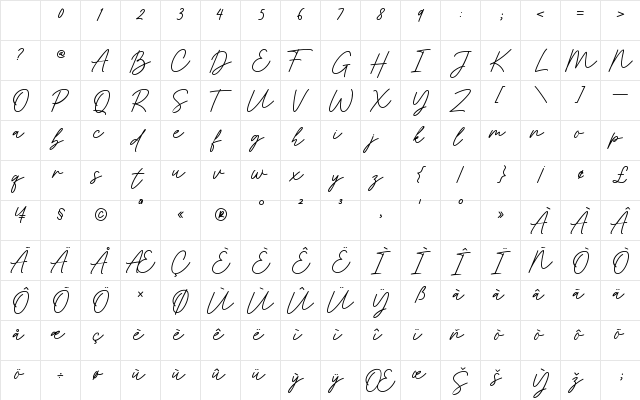
Complete Golden Theory Demo Regular glyph index. Displaying only characters natively supported by Golden Theory Demo Regular font.
Golden Theory Demo is a composed and adaptable typeface that performs quietly and consistently across a wide range of design contexts.